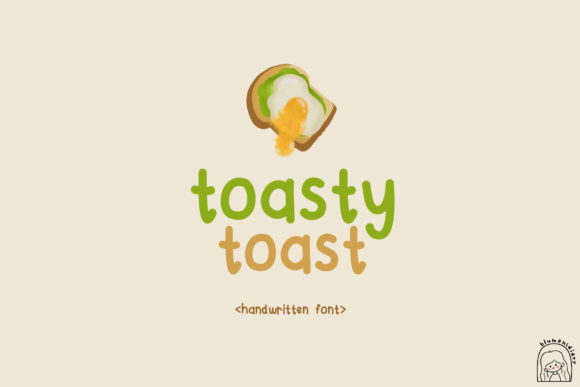
Step into the world of Toasty Toast Font, a vibrant and energetic handwritten font that ignites youthful spirit and flair. Its playful strokes and relaxed style bring a touch of whimsy and creativity to any project. Imagine your words dancing on the page, exuding confidence and individuality.
With Toasty Toast Font, your journals, homework, and school projects will be transformed into works of art. Its clear and legible characters ensure effortless readability, while its charming style adds a personal touch that makes your work stand out. No matter the occasion, Toasty Toast Font is your trusty companion, ready to elevate your written creations.
For the tech-savvy generation, Toasty Toast Font embraces inclusivity, supporting not only Latin characters but also Thai alphabets. This makes it the ultimate choice for those who seek to express themselves in diverse languages. Say goodbye to limitations and embrace a world of creativity and self-expression.
Toasty Toast Font is not just a font; it's a way to express your true self. It captures the essence of casual, effortlessly cool handwriting, adding a touch of personality to everything you write. Whether you're a student adding a personal flair to your assignments, a creative professional seeking unique branding, or simply someone looking to infuse their writing with youthful energy, Toasty Toast Font is your perfect match.